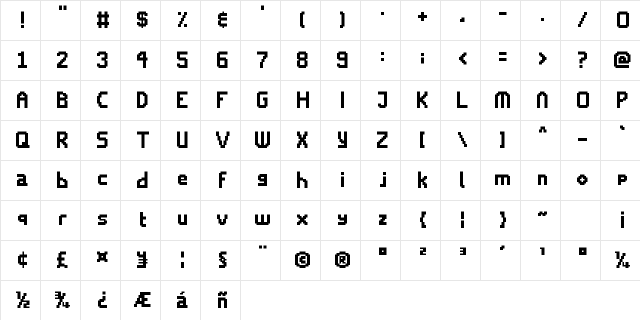
SuperCrestat Medium
Design Context for SuperCrestat Typeface
SuperCrestat takes a measured approach to typography — its balanced proportions and neutral character make it a reliable workhorse for both digital and print work.